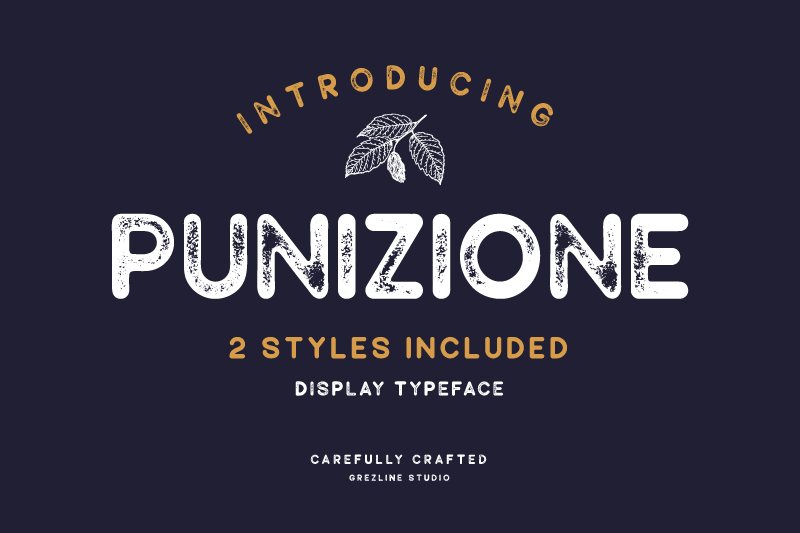
Preview and download Punizione Font. Created by Akhmad Reza Fauzi in Fancy Eroded styles with Free for personal use license.
This font is for PERSONAL USE ONLY! Punizione is a fresh bold vintage font available in two styles; clean & stamp. Get inspired by its contemporary coolness! --------------------------------------------------------- Any DONATION will be appreciated https://www.paypal.me/akhmadrezafauzi Purchase COMMERCIAL LICENSE: https://grezlinestudio.com/product/punizione-font/ Visit my store for special price and discount : https://grezlinestudio.com If you have any questions, feel free to contact me : grezline.studio@gmail.com |